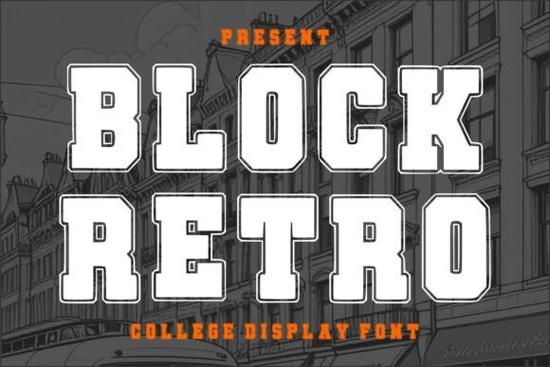
If you're working on a sports-themed design, university merch, or anything that needs a bold, vintage athletic vibe, Block Retro Font is worth a closer look. This display typeface channels the spirit of classic varsity jackets and gymnasium signage with its chunky, blocky letterforms and clean retro styling. It’s not just nostalgic it’s practical for modern creators who need legible, attention-grabbing typography that feels authentic without looking dated.
What makes Block Retro Font stand out for branding and apparel?
Unlike delicate script fonts or minimalist sans-serifs, Block Retro leans into its college-sport roots. Each character has a sturdy, almost carved appearance ideal for screen printing on T-shirts, embroidering on caps, or creating eye-catching posters. The font maintains clarity even at large sizes, which is essential when your design might end up on a stadium banner or a hoodie tag.
It works especially well when you want to convey energy, tradition, or team pride. Think local sports leagues, alumni events, retro gaming merch, or even café branding with a 1980s throwback theme. Because it’s a display font, it’s best used sparingly headlines, logos, short phrases not body text.
How does it compare to other bold display fonts?
There’s no shortage of athletic-inspired fonts, but Block Retro strikes a balance between authenticity and versatility. For example, if you’ve used Junaid, you know it offers a more modern geometric feel. Meanwhile, Girls Stylish leans into playful elegance great for fashion but not for football.
Block Retro sits comfortably alongside fonts like Volta, which shares a mid-century aesthetic, though Volta has more rounded terminals and a slightly softer presence. If you’re exploring options, also consider Cameron for a cleaner collegiate look or Letter Crafts if you need hand-painted texture layered over block shapes.
Who should use this font and where?
Block Retro shines in hands-on creative work:
- Print-on-demand sellers can use it for team spirit shirts, gym bags, or retro workout gear.
- Small business owners running sports bars, skate shops, or vintage boutiques may find it perfect for window decals or menu headers.
- Crafters and DIYers can cut it with Cricut or Silhouette machines for wood signs, tote bags, or iron-on patches.
- Graphic designers building brand identities for youth leagues or alumni associations will appreciate its instant recognition factor.
Because it’s a single-style display font (typically uppercase with alternate characters), it’s not meant for long paragraphs but that’s by design. Its strength lies in making a quick, confident visual statement.
Tips for using Block Retro effectively
To get the most out of this font, keep these pointers in mind:
- Pair it wisely. Combine Block Retro with a simple, neutral sans-serif (like Montserrat or Helvetica) for contrast and readability in supporting text.
- Watch spacing. Some letters may benefit from slight tracking adjustments especially in all-caps layouts to avoid crowding.
- Add texture thoughtfully. A subtle paper grain or distressed overlay can enhance its vintage appeal, but don’t overdo it; the font already carries strong character.
- Test at scale. Always preview your design at actual print size. What looks crisp on-screen might lose definition on fabric or vinyl if details are too fine (though Block Retro’s thick strokes usually hold up well).
For historical context, this style traces back to early 20th-century American collegiate athletics, where bold block letters were painted on gym walls and stitched onto wool sweaters. Today’s digital versions like Block Retro honor that legacy while offering vector precision and licensing flexibility for commercial use something important if you’re selling designs.
If your project calls for unapologetic boldness with a touch of nostalgia, Block Retro Font delivers without fuss. Just remember: great typography isn’t about using the fanciest font it’s about choosing the right one for the message. And sometimes, that means going big, blocky, and proudly retro.